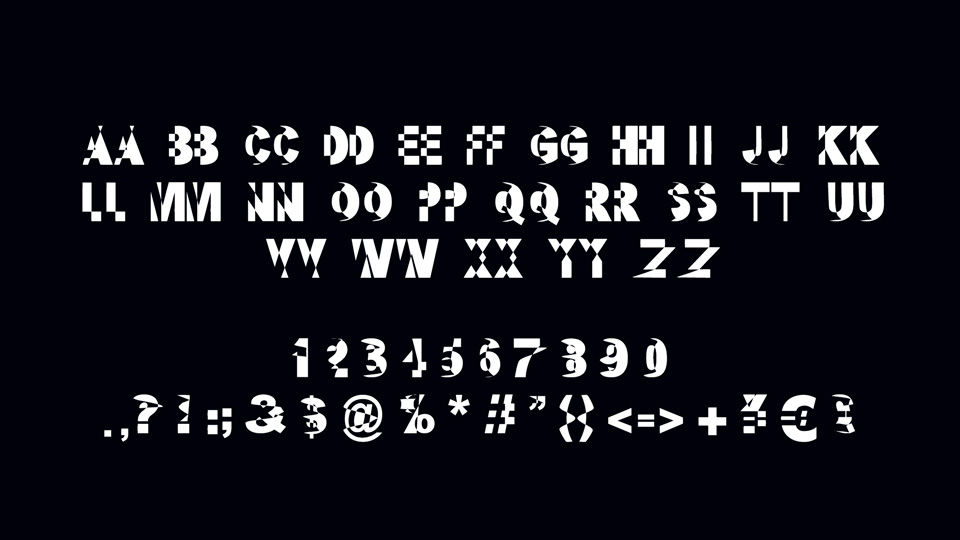
Kandinsky is a creative experimental typeface with distorted shapes inspired by artworks. The font contains all caps letters, numbers, symbols.
Kandinsky font is perfect for posters, headlines and other art projects.